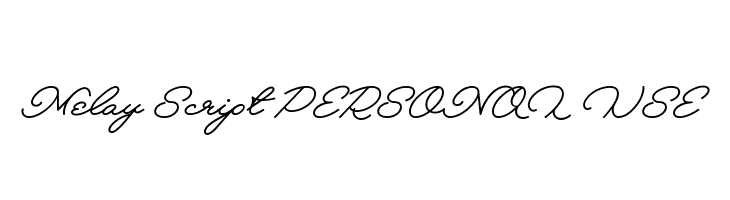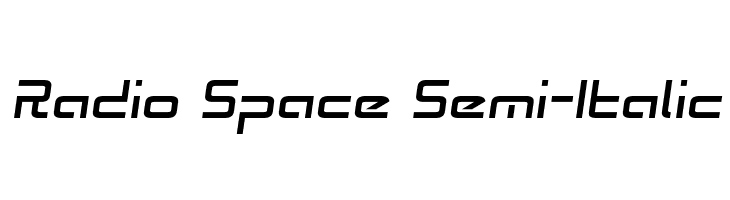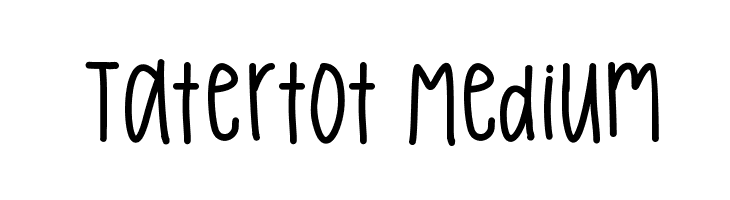
A bold, staggered, and italic font with sharp angles and dynamic style.
( Fonts by Claudia )
A lively, handwritten font with fluid, continuous strokes and elegant slant.
( Fonts by creatype designer )
Playful, bold, outlined hand-drawn font.
A whimsical, hand-drawn font with playful and dynamic characters.
( Fonts by Przemyslaw Hoffer )
A geometric, angular font with a modern, mechanical style.
A bold, geometric font with an expanded width and angular design.